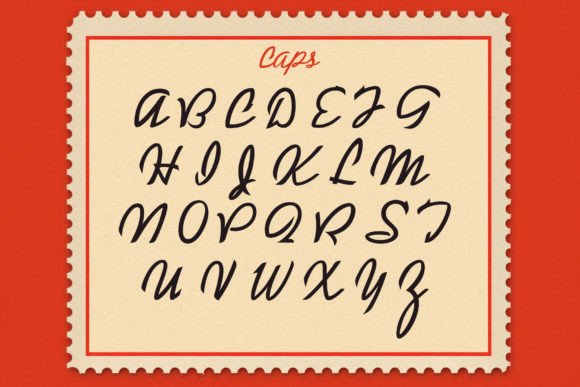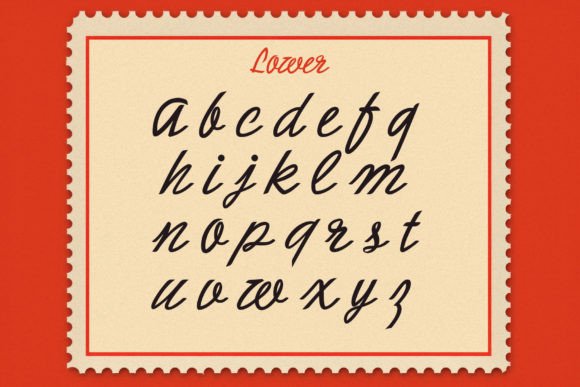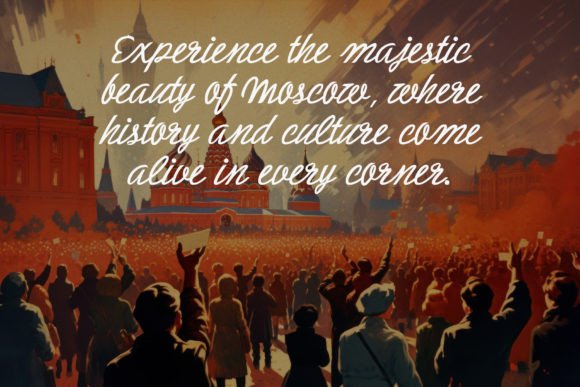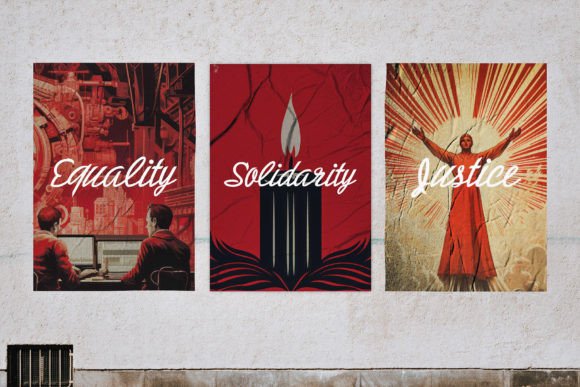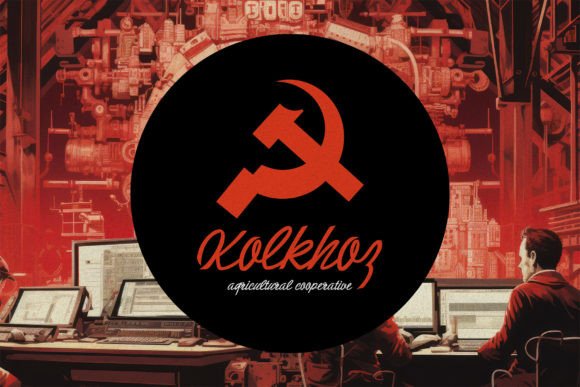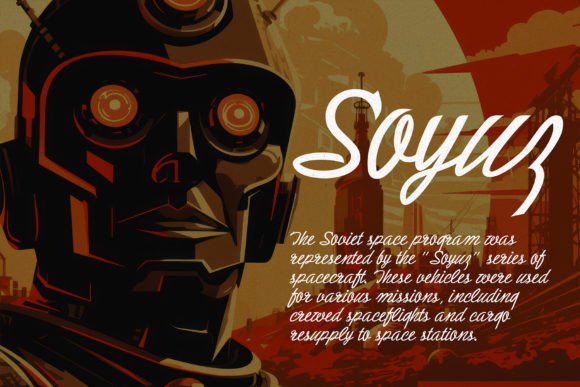
Introduction to Moskovi Script Font
Enter Moskovi Script Font, a game-changing typeface that seamlessly blends vintage Soviet design with modern-day sophistication. With its high-quality, intricately crafted strokes and elegant curves, this font is sure to captivate the hearts of designers worldwide. Whether you’re working on a creative project that requires a touch of nostalgia or a bold, eye-catching statement, Moskovi Script Font is the perfect addition to your design arsenal.
Key Features of Moskovi Script Font
- High-quality design resource ideal for creative projects, including invitations, posters, and more.
- Designed with a unique, elegant script style, making it perfect for adding a touch of sophistication to any project.
- Includes a range of characters, including uppercase and lowercase letters, numbers, and punctuation marks, to provide a comprehensive typing solution.
Honest Review: Moskovi Script Font
I recently came across the Moskovi Script Font, a high-quality design resource that caught my eye. As a designer, I’m always on the lookout for unique and creative fonts to enhance my projects. The Moskovi Script Font delivers on both fronts.
Here are some of the things that work well: ✨
- Unique and elegant design style
- Perfect for creative projects, such as branding, invitations, and more
However, I did encounter a few limitations: ⚠️
- Only available in a single weight, which may limit its versatility
- No companion font families available, which could be a drawback for some users
Overall, I’m impressed with the Moskovi Script Font. Its unique design and high-quality images make it a valuable addition to any designer’s toolkit. While it may have some limitations, it’s still a great resource for creative projects and a fantastic free download.
Common Use Cases for Moskovi Script Font
Use Moskovi Script Font for creative projects such as wedding invitations, birthday cards, or social media graphics. The font’s elegant and sophisticated design makes it perfect for high-end branding, luxury products, or premium services.